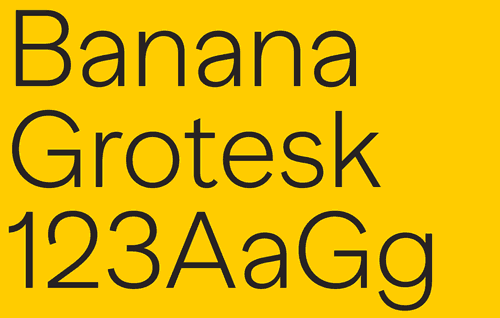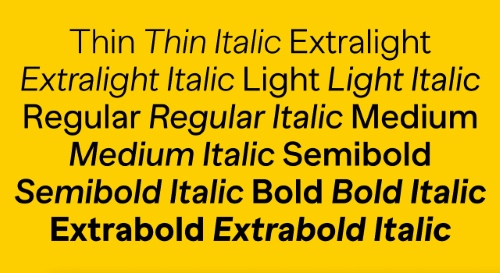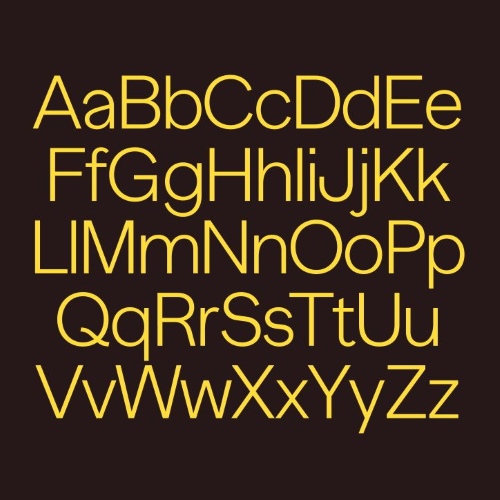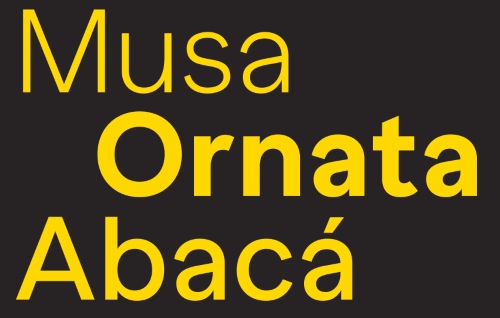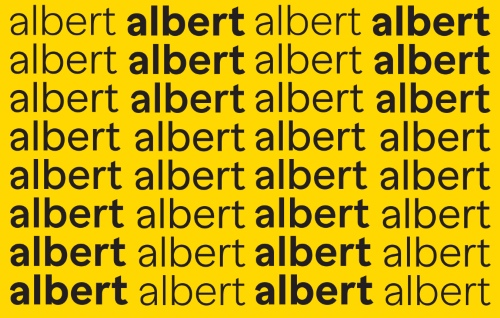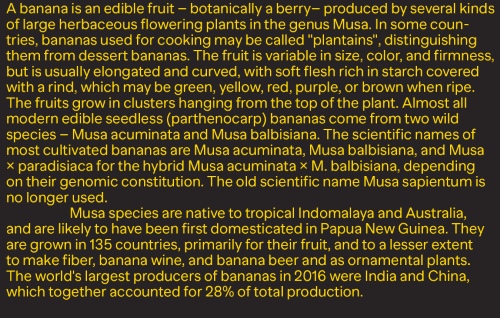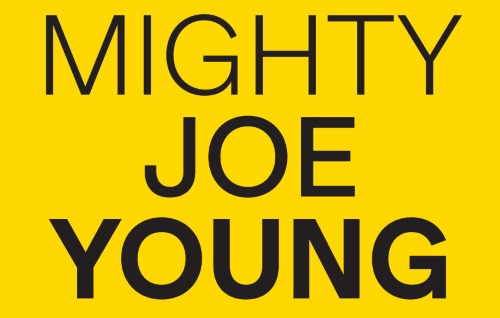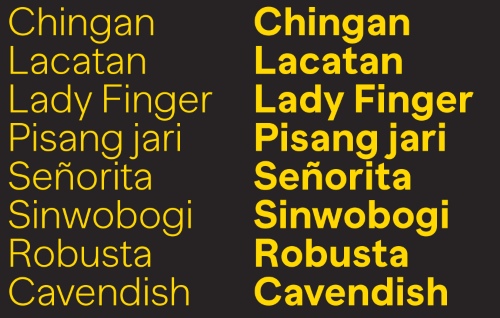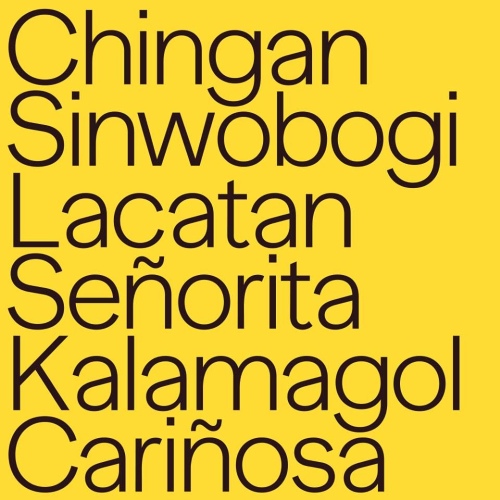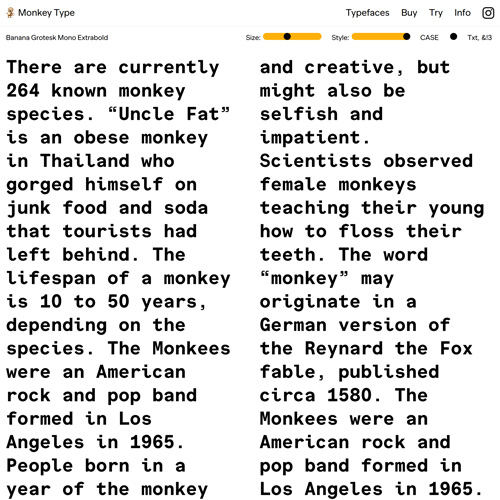
Banana Grotesk Sans & Mono
24 Styles + Variable Font Family
- It is a popular sans-serif font released in 2018 by the MNKY Type (Monkey Type) font foundry..It was created by its designers trying to draw the Akzidenz-Grotesk typeface solely from memory , interspersed with classic Gill Facia details, giving it a unique character. It is frequently preferred, especially in modern web interfaces and SaaS landing pages.
Key FeaturesDesign Origin: It was born from a hybridization of Akzidenz-Grotesk's drawing from memory and Gill Facia's style.Distinguishing Letters: The most noticeable details that set it apart from classic fonts are hidden in the lowercase "a" , "g" , and "f" letters.Extensive Family Structure: Offers a total of 8 different weight options, along with accompanying italic styles .Alternative Version: A Banana Grotesk Mono version is also available for programmers and those who prefer monospace design. Banana Grotesque Mono (usually referred to as Banana Mono in official libraries ),Designed by independent font studio MNKY Type (Monkey Type) , it is a modern, fixed-width (monospace) font..The family's main font, Banana Grotesk, was created by its designers who simply recalled the Akzidenz-Grotesk font from memory and incorporated Gill Facia details (especially in the small "a", "g", and "f" letters) to create a hybrid form. The Mono version translates these characteristics into a fixed-width format for code editors, terminal screens, and designs requiring technical alignment.